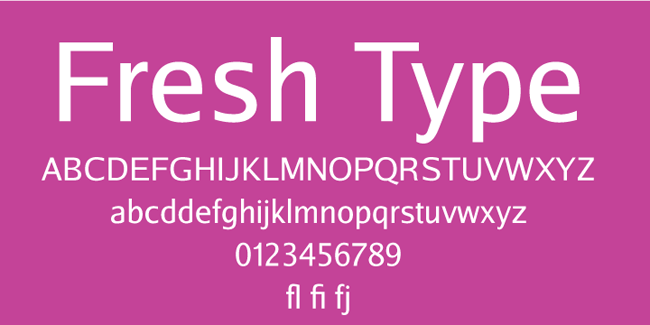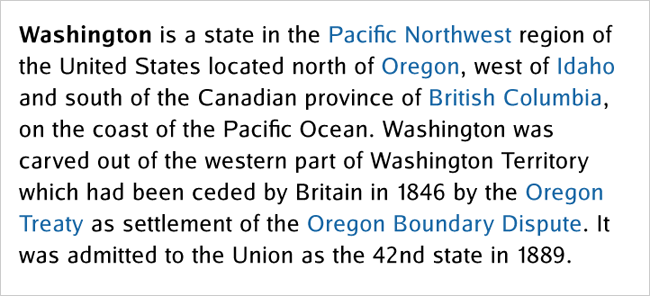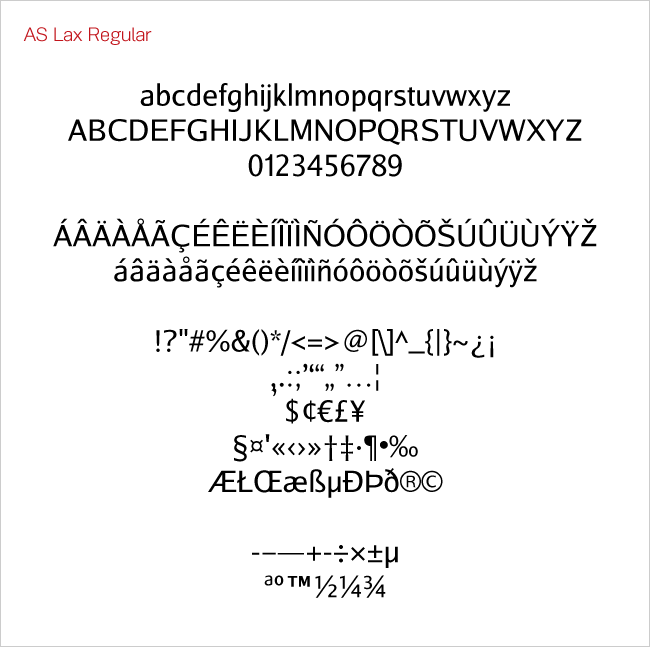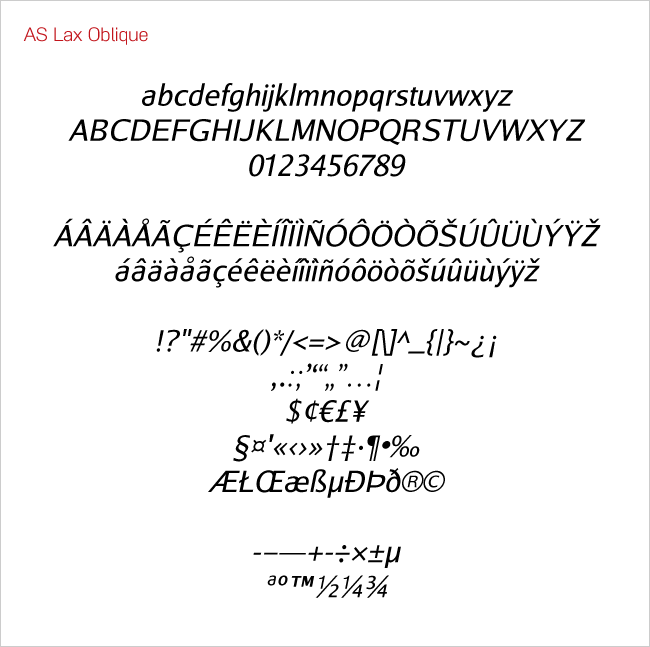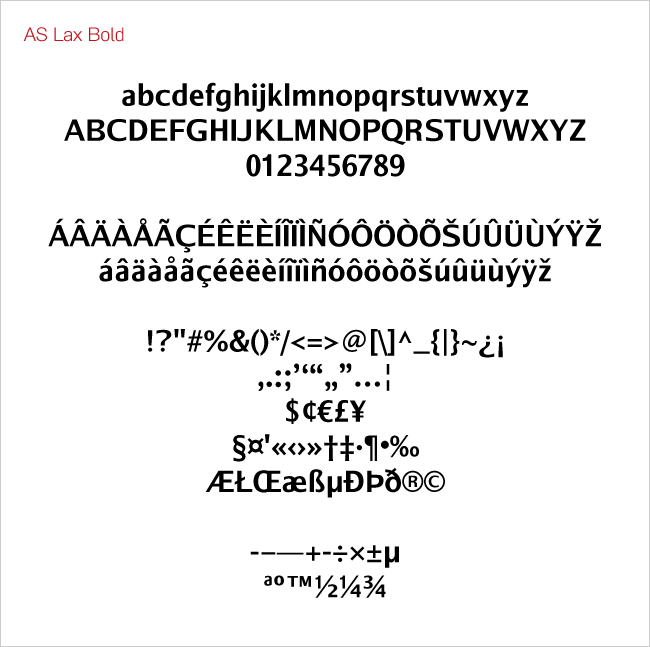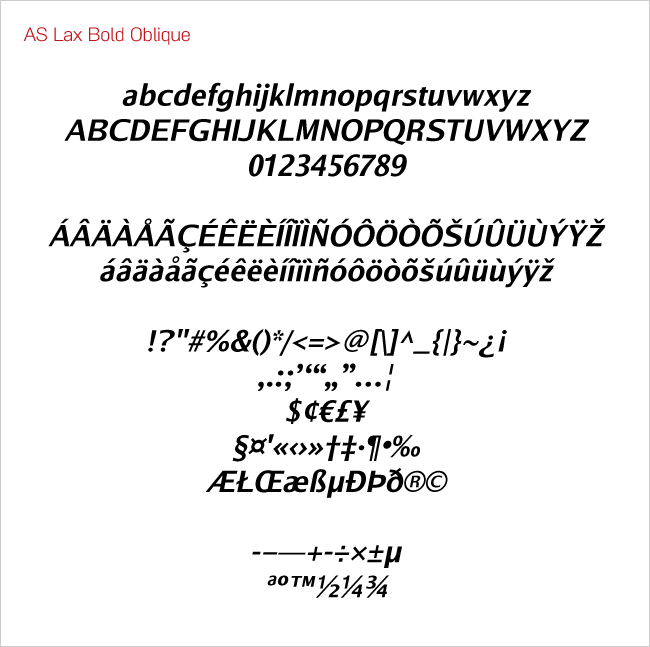
If you're looking to change things up on your website, before you go crazy with new colors or huge graphics, why not take a simpler approach? Start with the part of your site users look at the most: the font.
Sure you can pick from a number of popular fonts to try different looks, but do you really want to be just like every other website out there? Of course not. You want the internet to stop, turn, and stare at the awesomeness that is your site. And what better way to do that then with the professional AS Lax font?
- Personal and Powerful
Created by Aleksandr Sukiasov, the AS Lax font is a fresh and versatile take on the Sans Serif typeface. It's bold and powerful, yet very personal. - Multiple Weights
The AS Lax font family comes in five different weights, and includes both Western and Eastern European diacritics characters. - Versatile
This highly legible, geometric typeface is simply perfect for use on just about any project, whether it's online or offline.